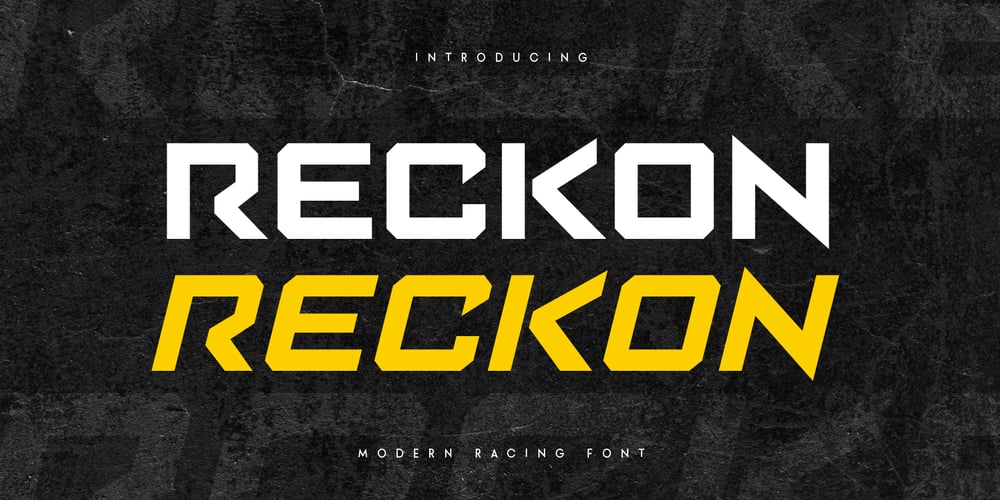
Reckon
Reckon font
Reckon Font Family was designed by Zamroni Hamzah and published by Sensatype Studio. Reckon contains 2 styles and family package options. Introducing Reckon, the ultimate font for all your racing and film needs. Reckon combines the thrill of high-speed racing with the excitement of blockbuster movies, creating a dynamic and bold typeface perfect for any project.Reckon Font Features: Futuristic Design: Sleek and modern, ideal for race car themes and sci-fi aesthetics. Versatile Usage: Perfect for racing events, car designs, sports branding, film titles, and dynamic trailers. Multiple Formats: Comes in 4 formats for all your design needs. Creative Alternatives: Offers unique characters and styles to make your designs stand out. Inspirational Previews: Includes sample designs to spark your creativity. Rev up your projects with Reckon and leave a lasting impression with its bold, fast-paced style. Perfect for headlines, posters, branding, and digital art, Reckon will make your work stand out in the fast lane.Get ready to rock your designs with Reckon!